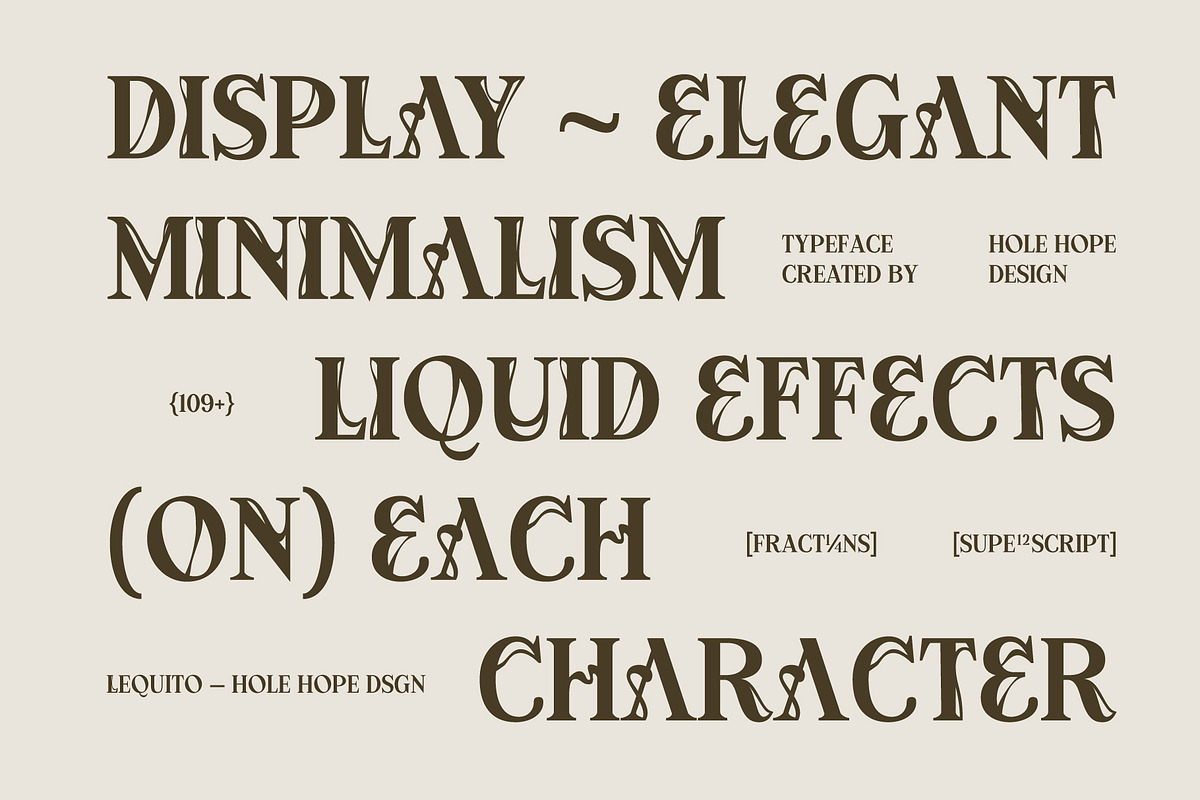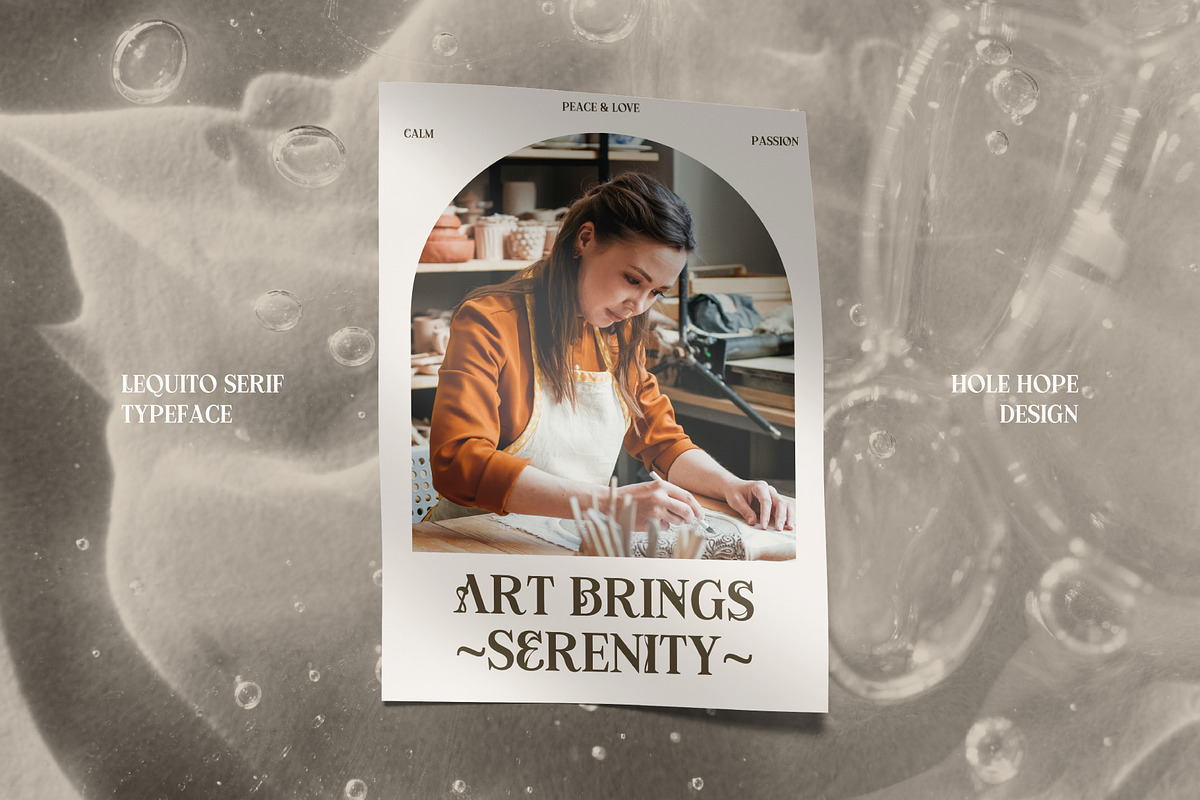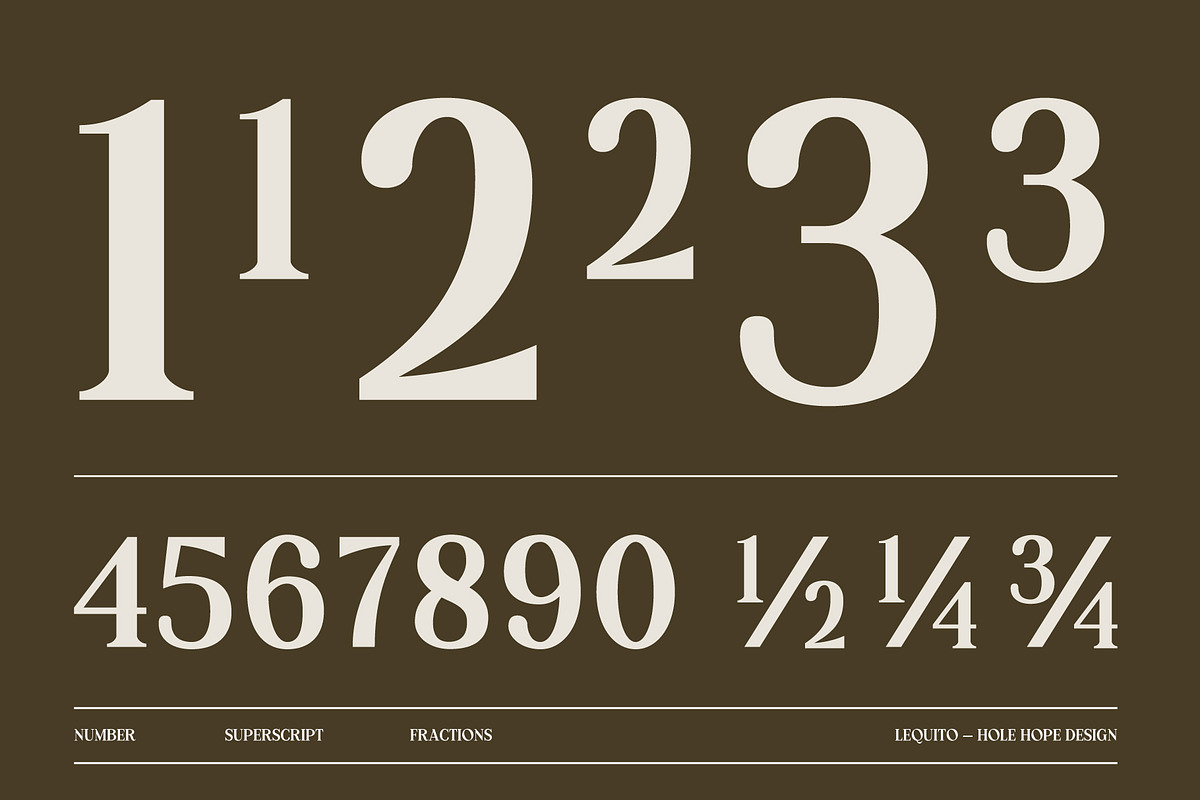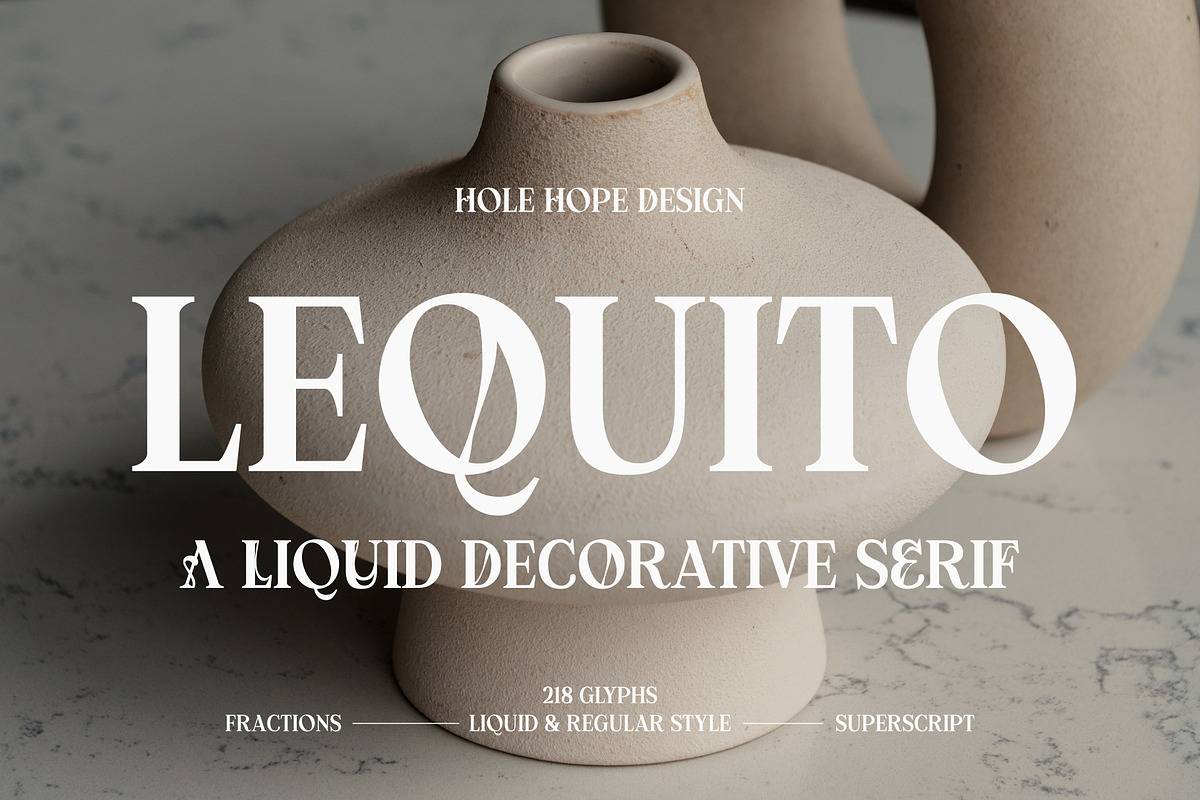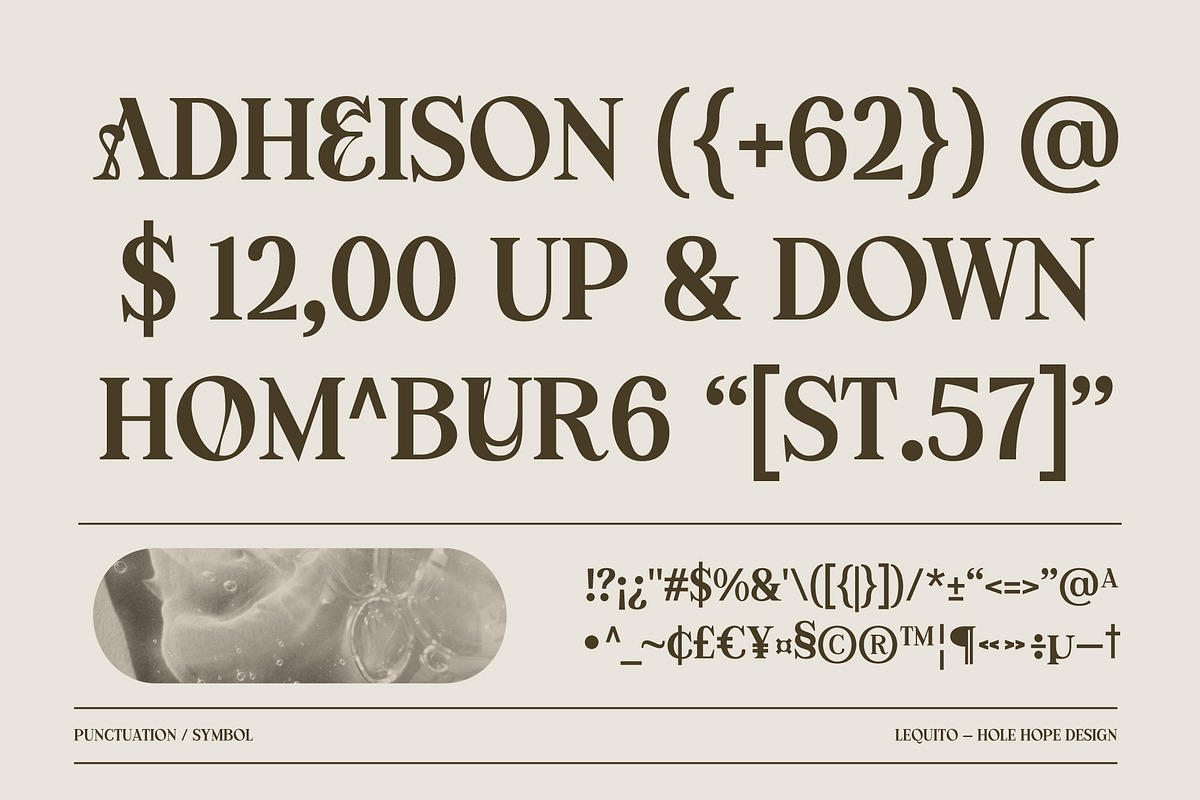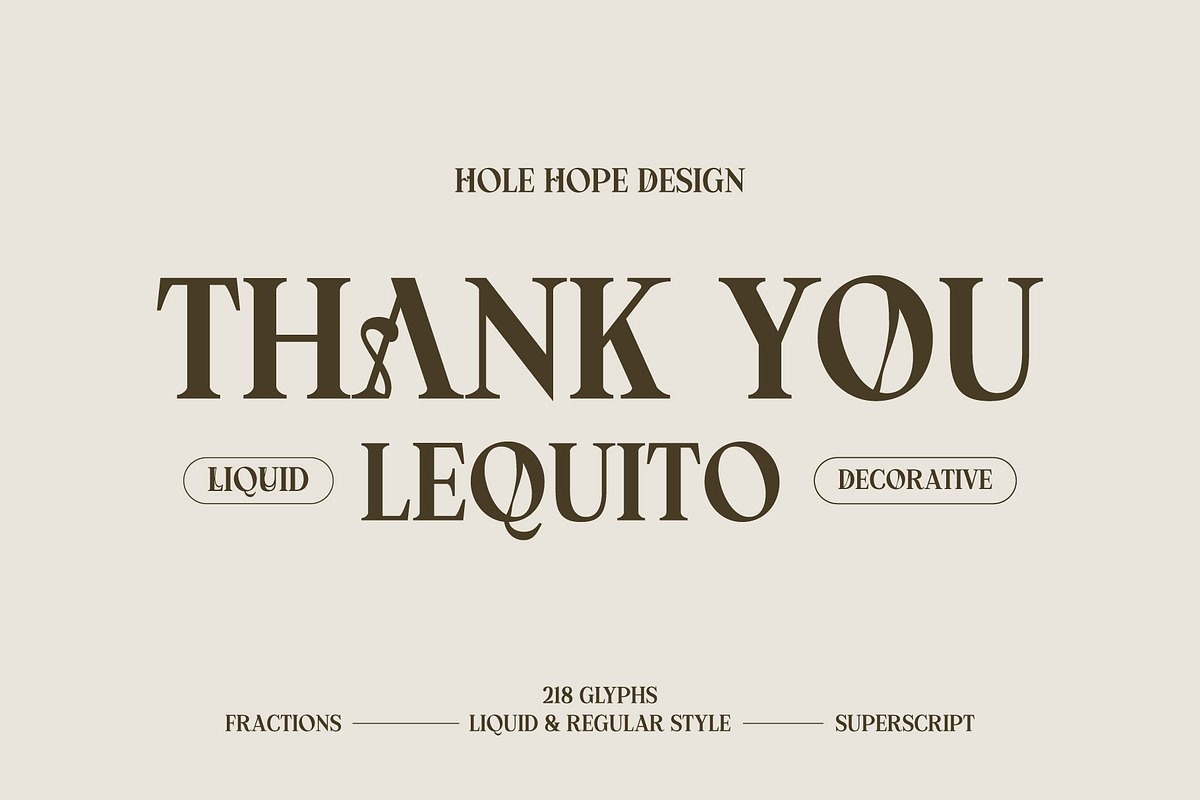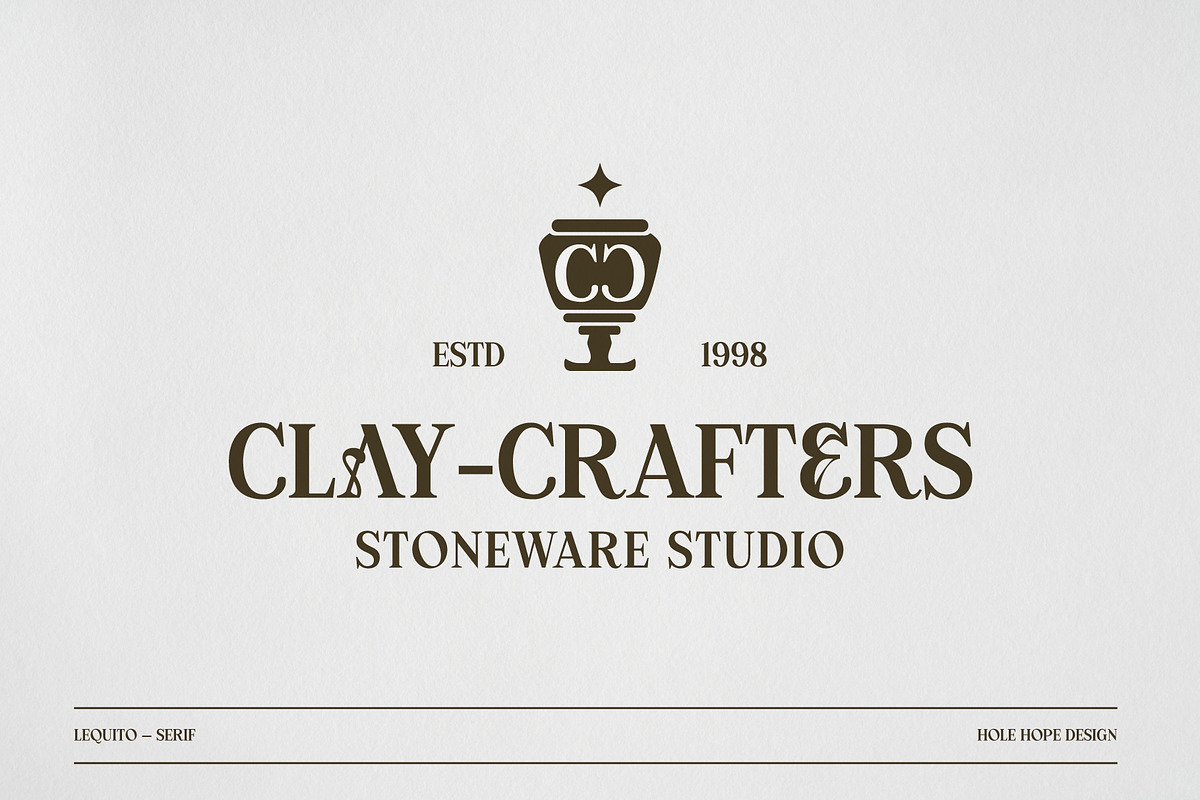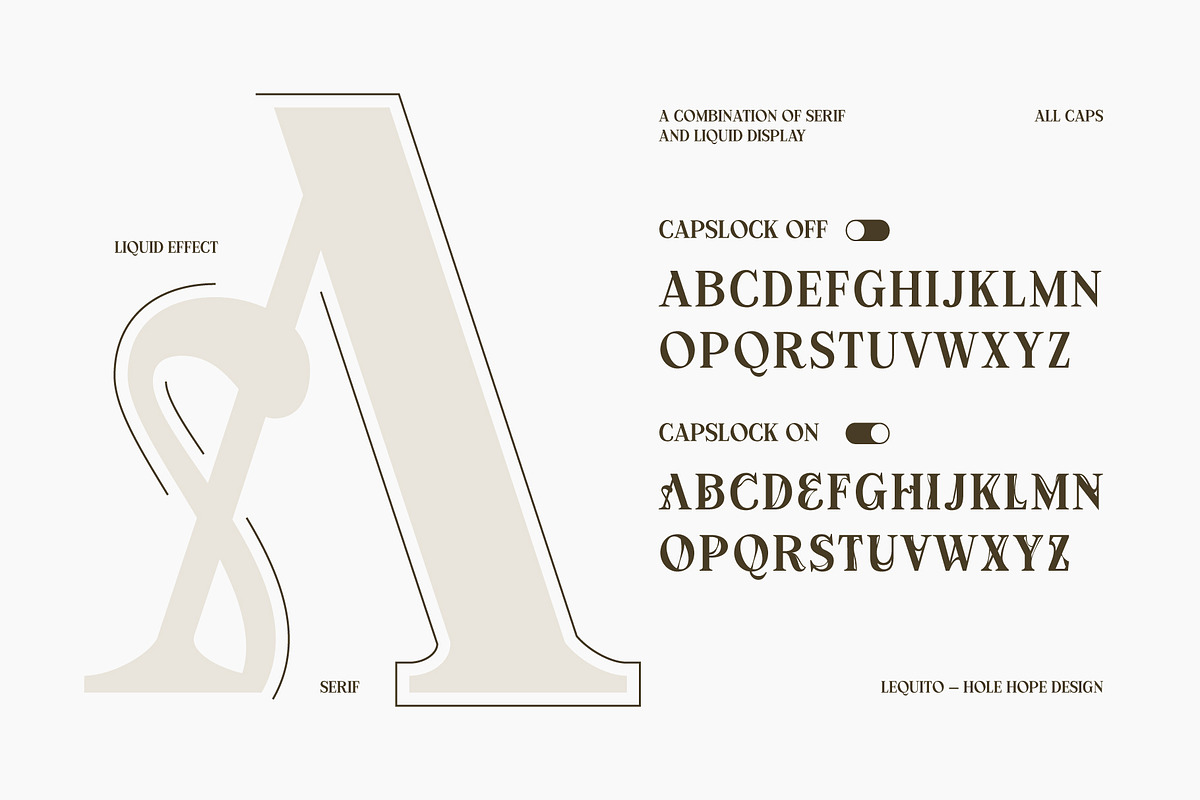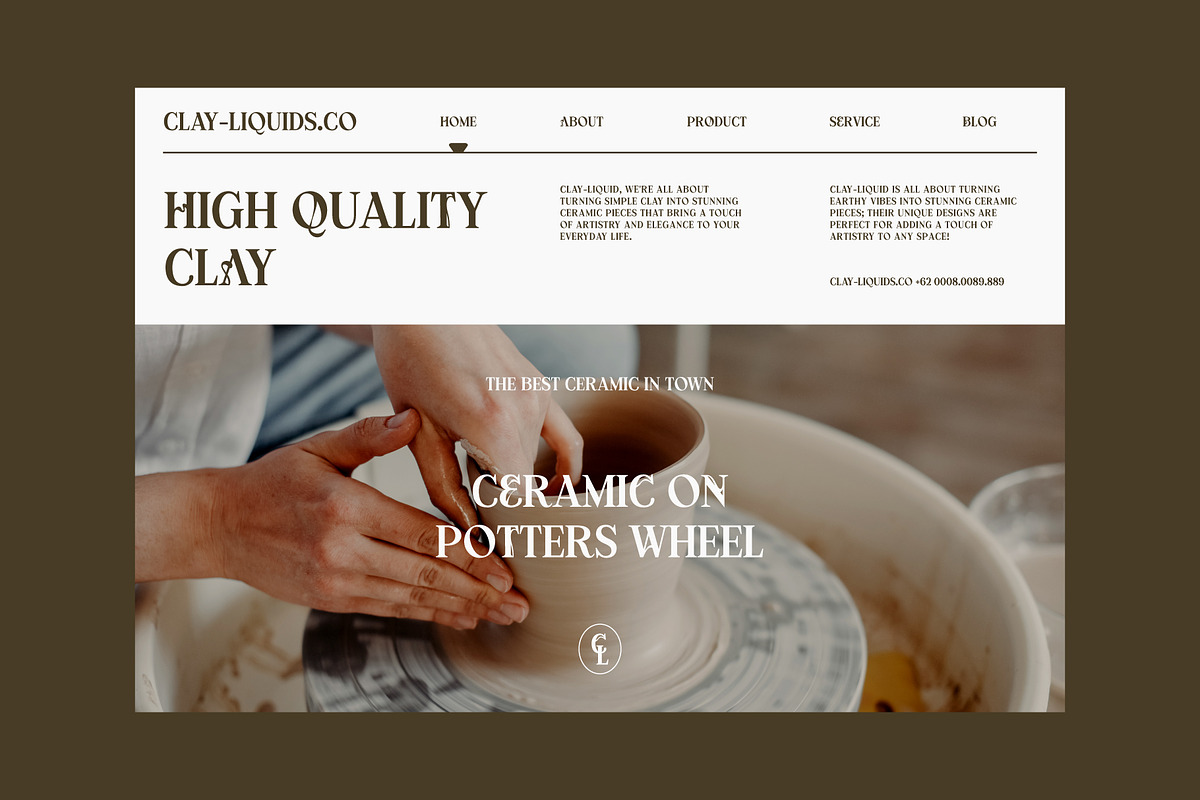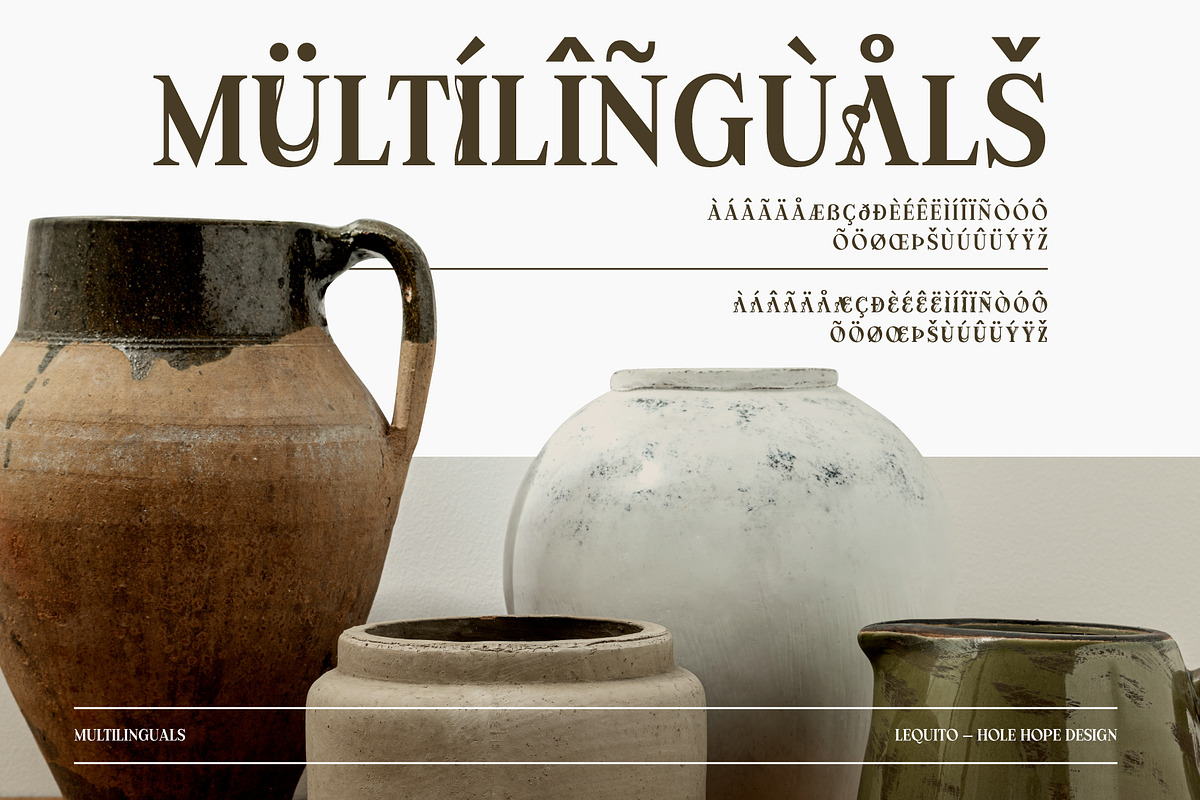
Lequito | Liquid Decorative Serif
Lequito | Liquid Decorative Serif Font
Lequito is a captivating blend of elegance and simplicity, embodying the essence of Vintage Minimalism. This font’s unique liquid-inspired design elements gracefully flow into each letter, creating a harmonious balance between classic serif sophistication and contemporary minimalistic charm. Perfect for projects seeking a touch of nostalgia with a modern twist, Lequito Liquid Decorative Serif enhances any design with its timeless aesthetic and understated beauty. Whether used for branding, editorial design, or special event invitations, this font adds a distinctive and refined touch to your creative endeavors.
- Character Set (All Caps)